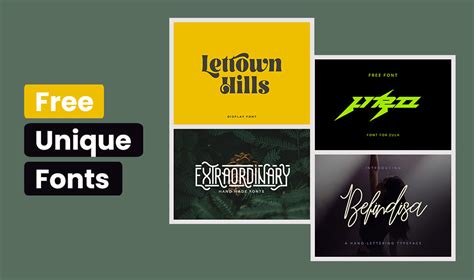
Unlock Your Creativity: Find the Perfect Fonts for Commercial Use Now!
Are you looking for the perfect fonts to make your designs stand out? Do you want to unlock your creativity and make your designs look professional?
Whether you’re a professional graphic designer, a hobbyist, or just someone who wants to make their work look great, finding the perfect fonts for your designs can be a challenge.
Did you know that the right font can make or break your design? It’s true! The right font can help your design stand out from the crowd, while the wrong font can make your design look amateurish and unprofessional.
So, how do you find the perfect fonts for your design project? Well, you’re in luck! This article will help you unlock your creativity and find the perfect fonts for commercial use.
Discover the best font tools and resources, find out what to look for in the perfect font, and learn how to make sure you’re getting fonts that are legal for commercial use. By the end of this article, you’ll be all set to create amazing designs with the perfect fonts!
Ready to unlock your creativity and find the perfect fonts for commercial use? Read on to learn more and get started on your next design project.
The Best Fonts for Your Creative Projects
When you’re working on a creative project, the right font can make a world of difference. The right font can bring your project to life and make it stand out from the competition. But with so many fonts out there, it can be hard to know which one is the perfect fit for your project. That’s why we’ve compiled a list of the best fonts for creative projects. Whether you’re creating a website, a logo, or a print project, these fonts will help you make a statement.
Free Fonts for Creative Projects
If you’re on a budget, free fonts are a great option for creative projects. There are thousands of free fonts available online, and many of them are of high quality. You’ll be able to find a variety of fonts for any project, from script fonts to bold display fonts. Just make sure to double-check the license before you use a font, as some fonts may have restrictions on commercial use.
Paid Fonts for Creative Projects
If you’re willing to invest a little bit of money, paid fonts are the way to go. Paid fonts often have a higher quality than free fonts, and they come with a commercial license. This means you can use them in any project, even if it’s for a client. You’ll find a wide selection of fonts from classic serifs to modern sans serifs. Just make sure to read the license carefully before you use a font, as some fonts may have restrictions on certain uses.
Font Bundles for Creative Projects
If you’re looking for a great deal on fonts, font bundles are the way to go. Font bundles are collections of fonts that are sold at a discounted price. You’ll usually get a variety of fonts, from script fonts to display fonts. Font bundles are a great way to get a lot of fonts for a low price. Just make sure to read the license carefully before you use a font, as some bundles may have restrictions on certain uses.
Unique Fonts for Creative Projects
If you’re looking for something really unique, you’ll want to check out “one-of-a-kind” fonts. These are fonts that are created by individual designers, often as part of a personal project. The fonts are often very unique and have a lot of personality. They’re great for projects that need to stand out from the crowd. Just make sure to read the license carefully before you use a font, as some fonts may have restrictions on certain uses.
Combining Fonts for Creative Projects
Sometimes, the best way to make a creative project stand out is to combine two or more fonts. This can be a great way to create a unique look that will grab people’s attention. Just make sure to use fonts that complement each other and don’t clash. Try to use fonts that have similar characteristics, such as weight, style, and x-height.
Finding the Perfect Fonts for Creative Projects
Finding the perfect font for your creative project can be a challenge. But with the right resources, you can find the perfect font for any project. Start by checking out free and paid font sites, such as Fonts.com and MyFonts.com. You can also look for font bundles and unique fonts on sites like Creative Market and DesignCuts. Once you’ve found the perfect font, make sure to read the license carefully before you use it.
Unlock Your Creativity with the Perfect Fonts
When it comes to creative projects, the right font can make all the difference. The right font can bring your project to life and make it stand out from the competition. With the right resources, you can find the perfect font for any project. Whether you’re looking for free fonts, paid fonts, font bundles, or unique fonts, you can find the perfect font for your creative project. Unlock your creativity and find the perfect fonts for commercial use now!